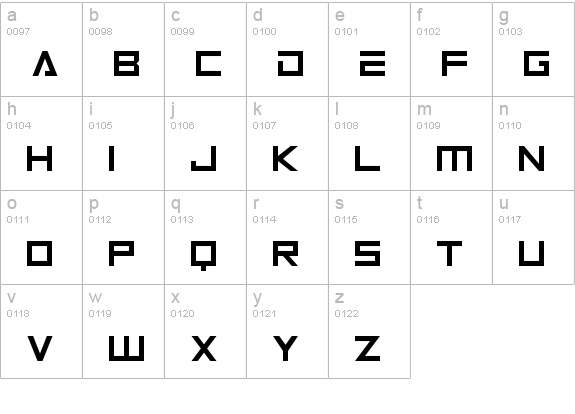
Android 101 Font Details
Android 101 is a donationware font in the Modern > Techno category, designed by Darrell Flood. It has been downloaded 177 times and is available for Windows, Mac and Linux.
Android 101 font is a modern and sleek typeface that exudes a sense of sophistication and style. With its clean lines and contemporary design, this font is perfect for a wide range of projects, from branding to web design. Its versatility makes it a popular choice among designers looking for a font that can easily adapt to various design needs.